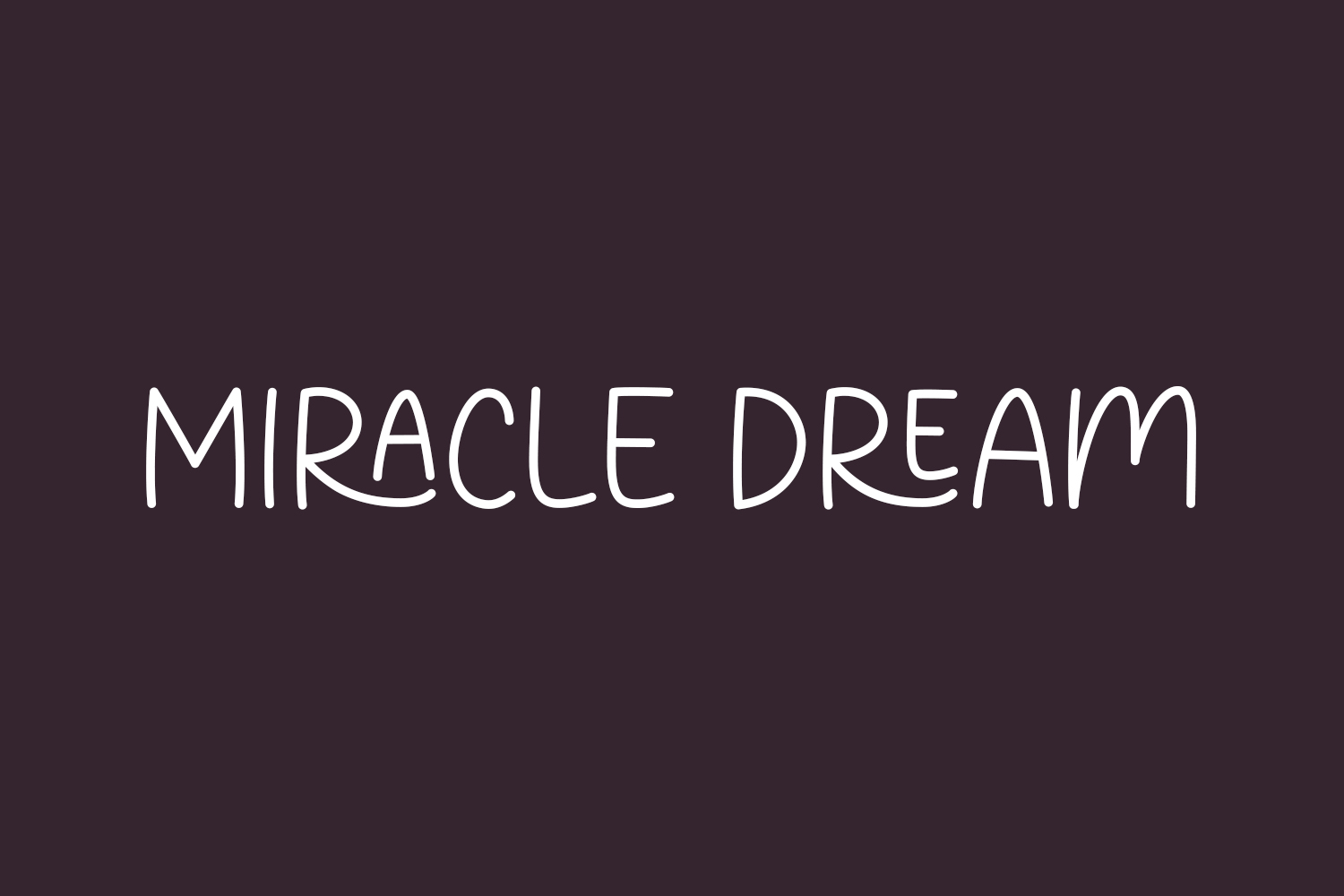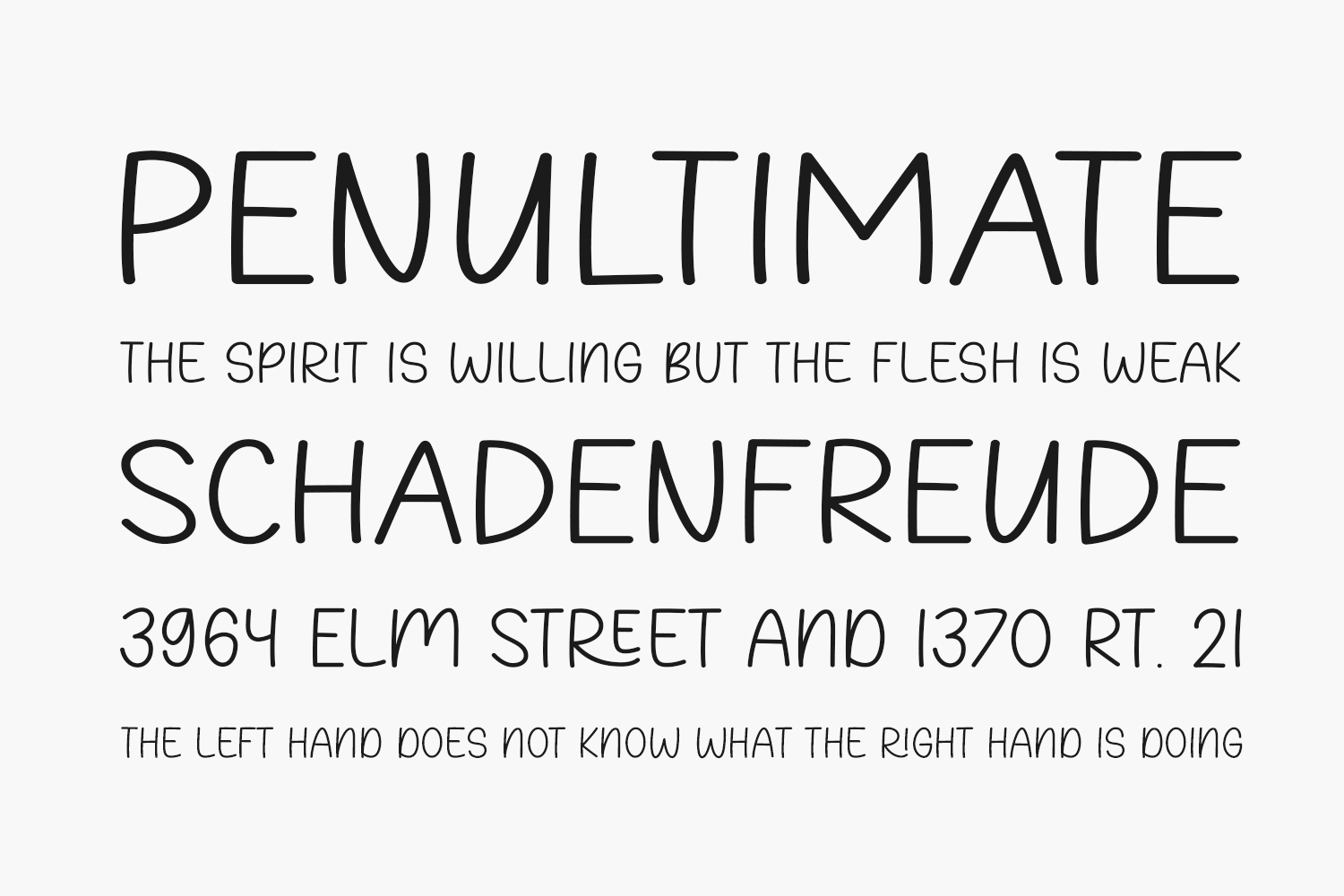
Discover Miracle Dream Free Font, an adorable handwritten font with simple, charming letters—ideal for creating engaging chalkboard quotes and educational materials. The font’s authentic appearance brings a personal and realistic touch to your designs, making it the perfect choice for a variety of creative projects. Miracle Dream Free Font was designed by Letternun and is free for personal use only. Please purchase the full version for commercial use.